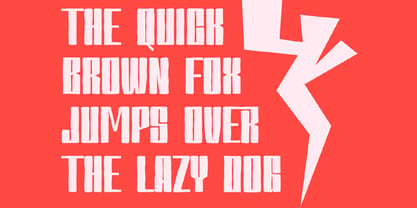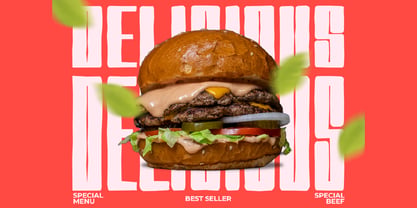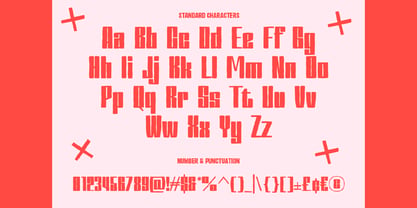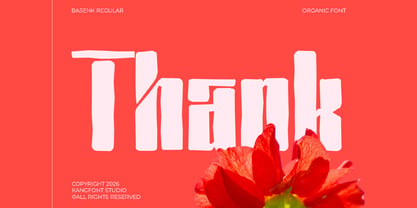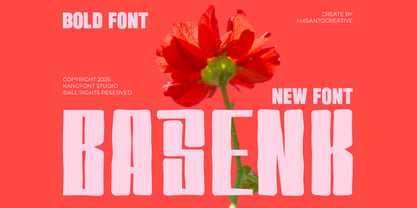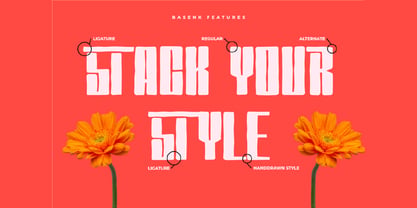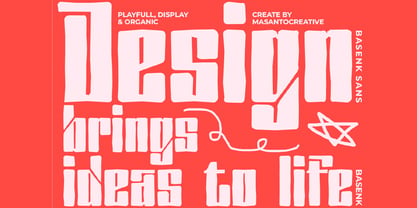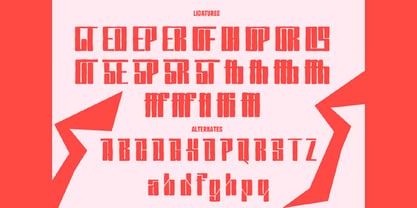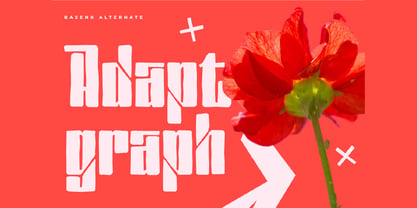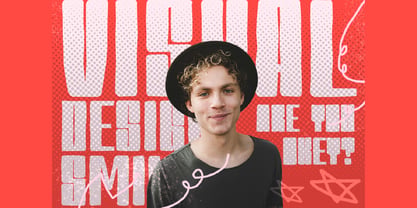
Basenk
The Basenk Font Family was designed by Sur Anto and published by Kangfont Studio. Basenk contains 1 styles. More about this family
Basenk Sans is a bold and playful display font with a unique organic touch. Designed with an irregular hand-drawn feel, this font brings strong personality and expressive character to any design project.
With its chunky shapes and slightly imperfect edges, Basenk Sans creates a lively and modern look that stands out instantly. It comes with stylistic alternates and ligatures, allowing you to explore more creative typography combinations and build distinctive visual identities.
This font is perfect for projects that need a bold and fun appearance, such as posters, branding, packaging, social media graphics, headlines, and merchandise design.